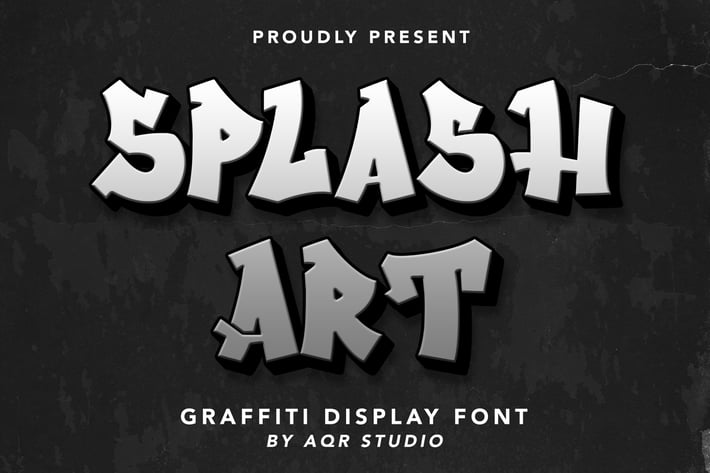
SplashArt - Graffiti Display Font
SplashArt - Graffiti Display Font contains a lowercase, uppercase, symbol, and also supports multi-language. There’s a lot of ligature in this font. SplashArt - Graffiti Display Font also comes with ligatures, stylistic alternates and many more.
this font suitable for fashion, branding, catalog and other design that you want.